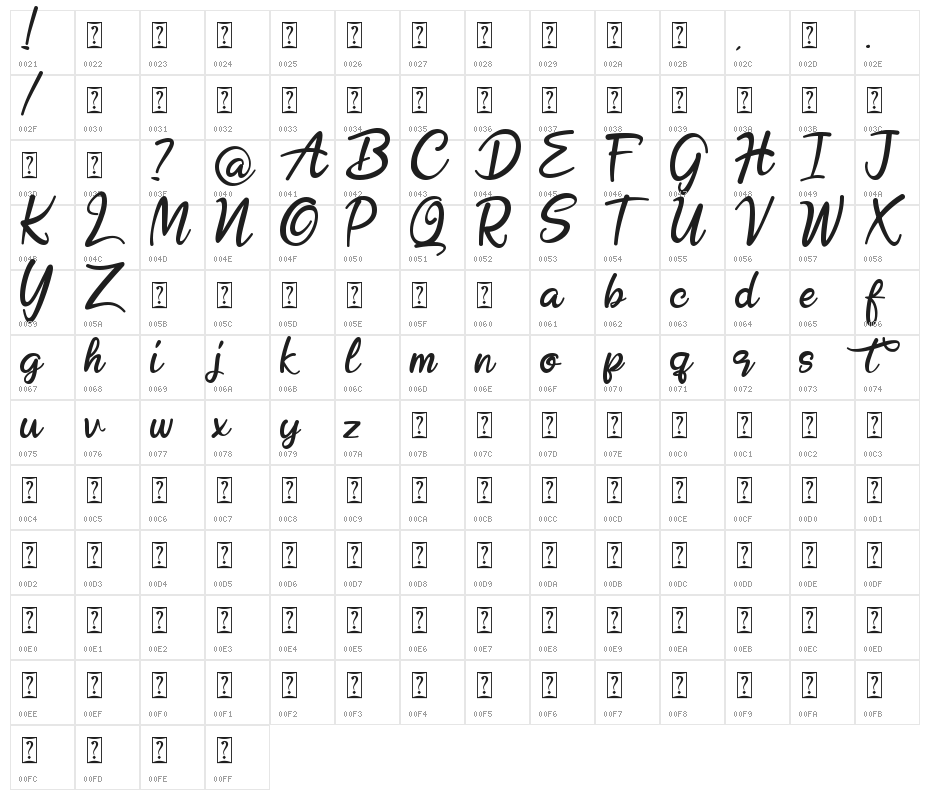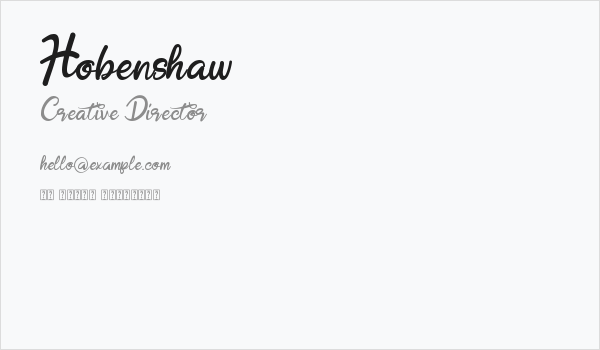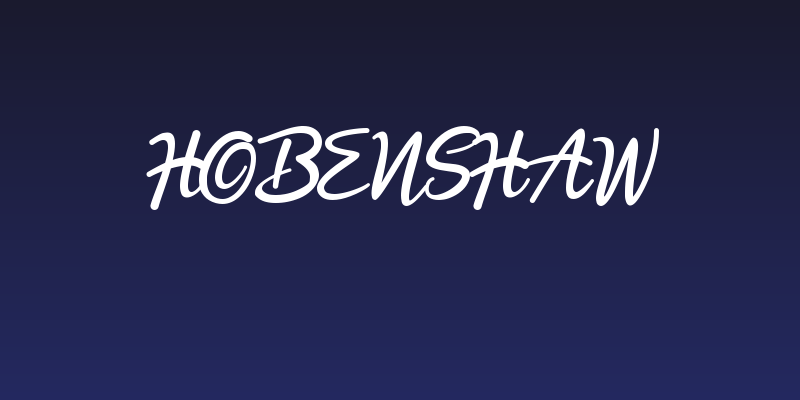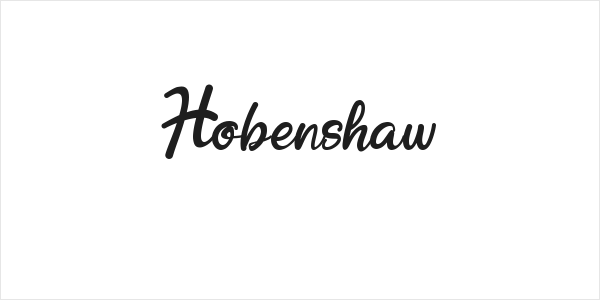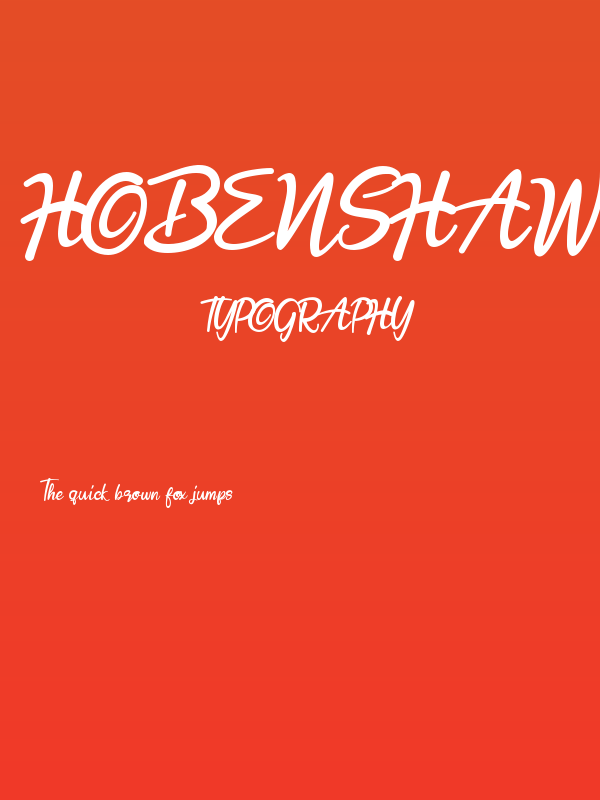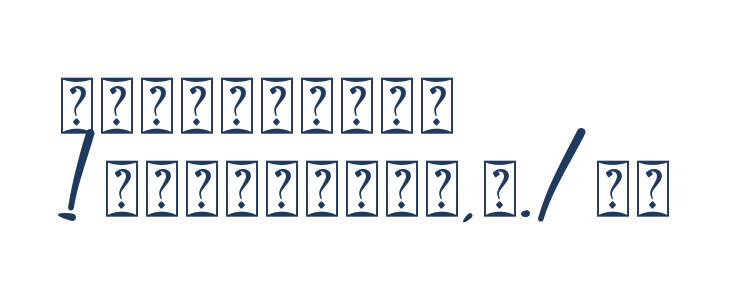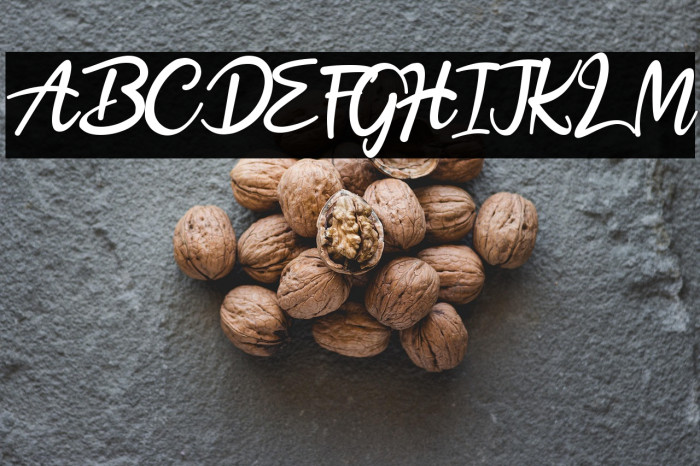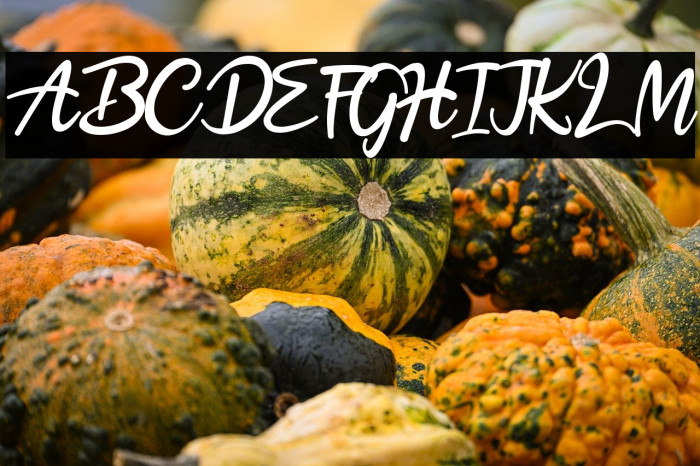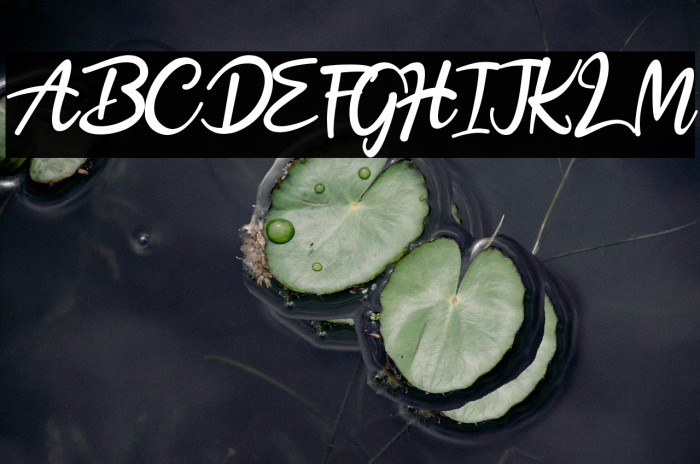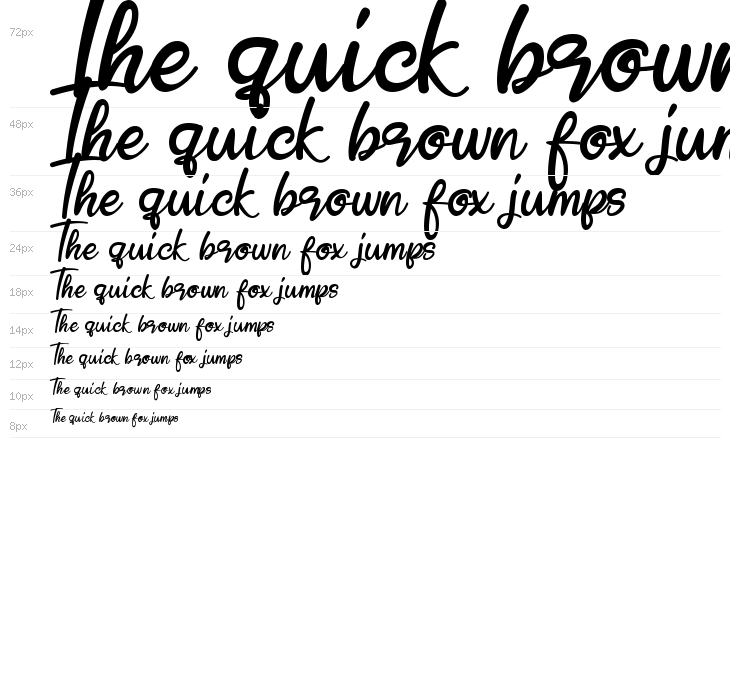
Hobenshaw Font
Hobenshaw Description
This font features a dynamic and fluid script style, characterized by its elegant and flowing letterforms. The uppercase letters are bold and sweeping, with a sense of movement that suggests a handwritten quality. The lowercase letters maintain this fluidity, with smooth connections between characters that enhance its cursive nature. The font's overall appearance is both sophisticated and approachable, making it suitable for a variety of design contexts. Its bold strokes and consistent weight give it a strong presence, while the rounded edges add a touch of softness. The font's unique style is further emphasized by its high contrast between thick and thin strokes, creating a visually striking effect.
| Overall Style | Elegant, Handwritten |